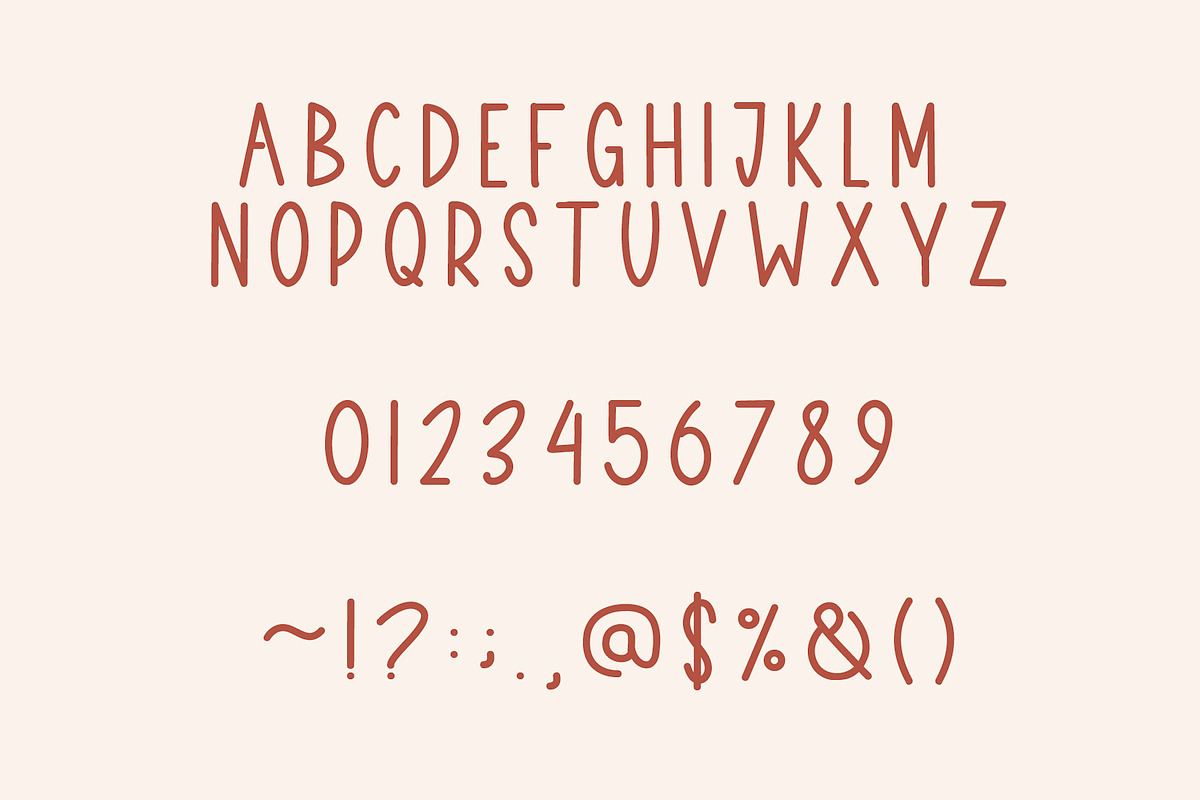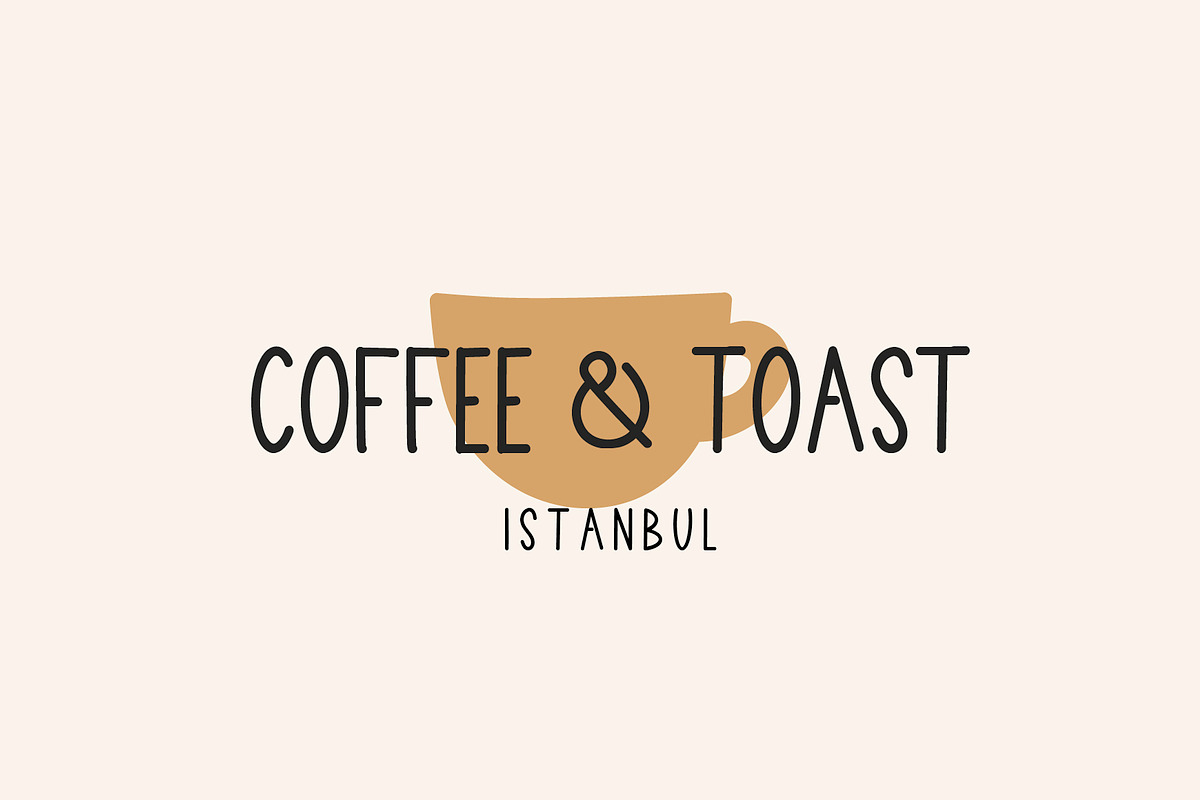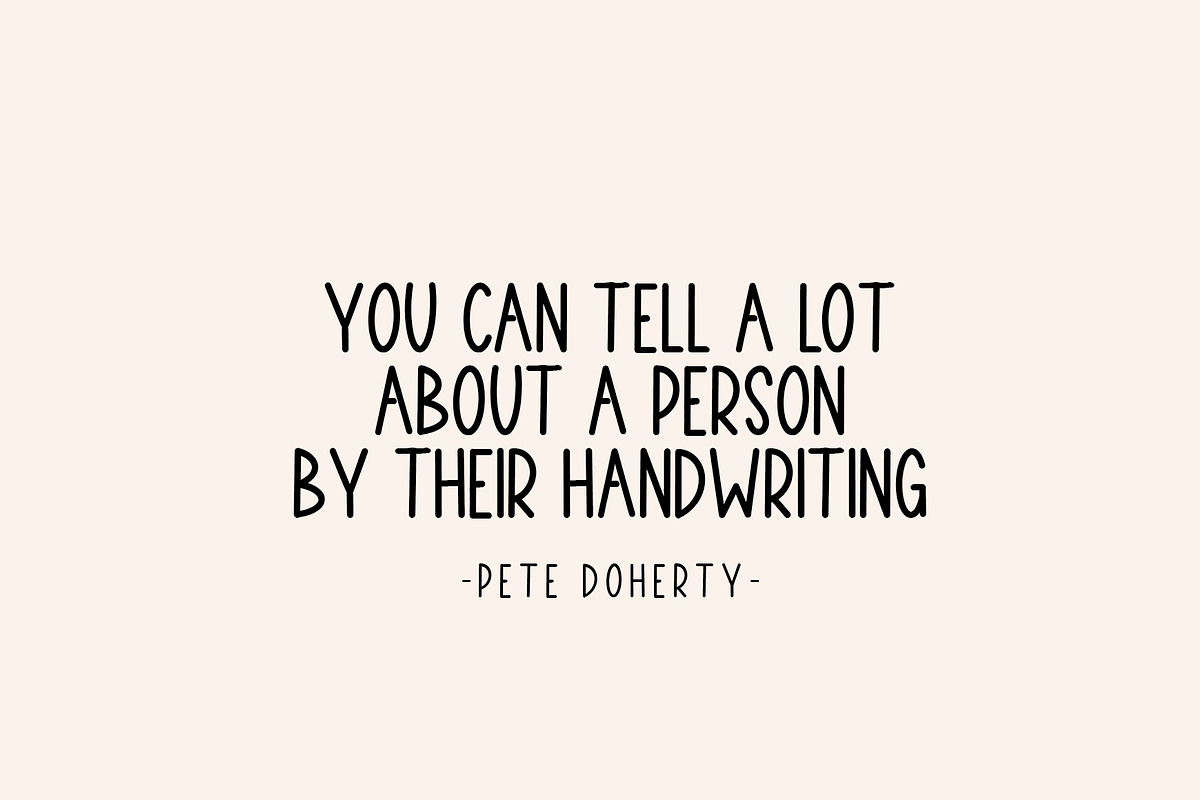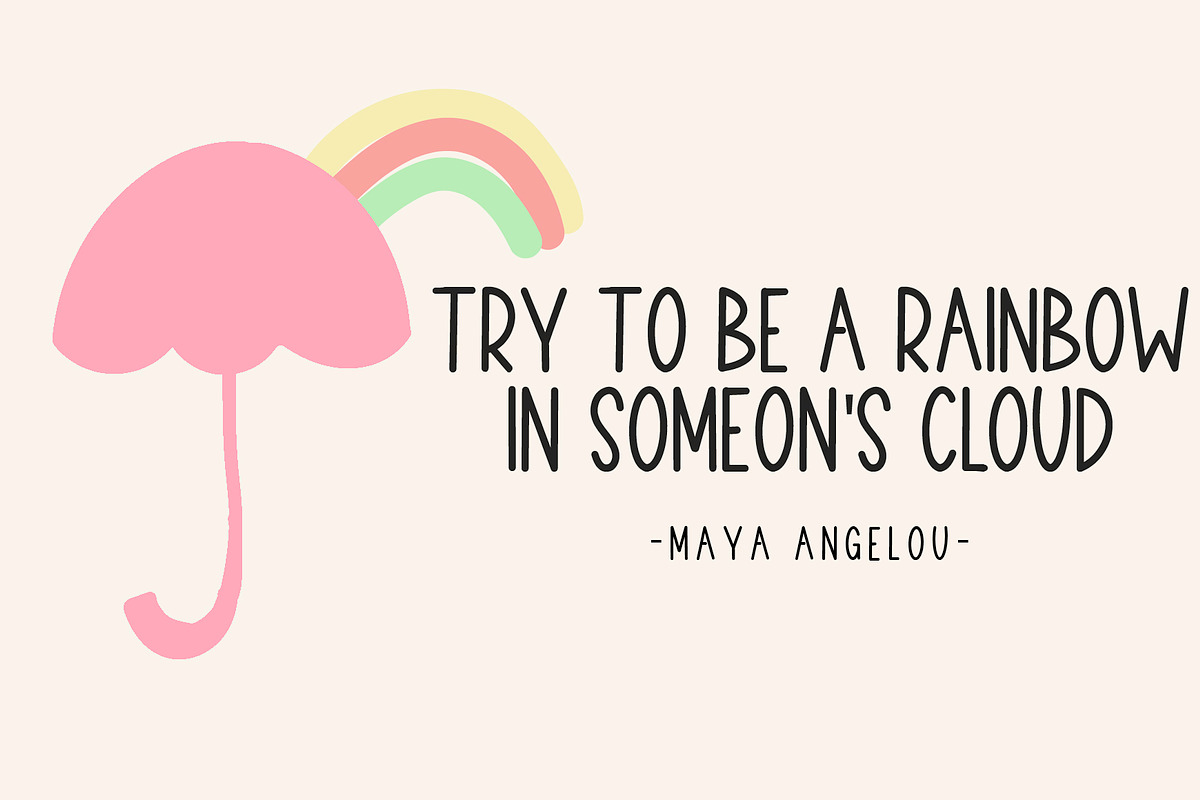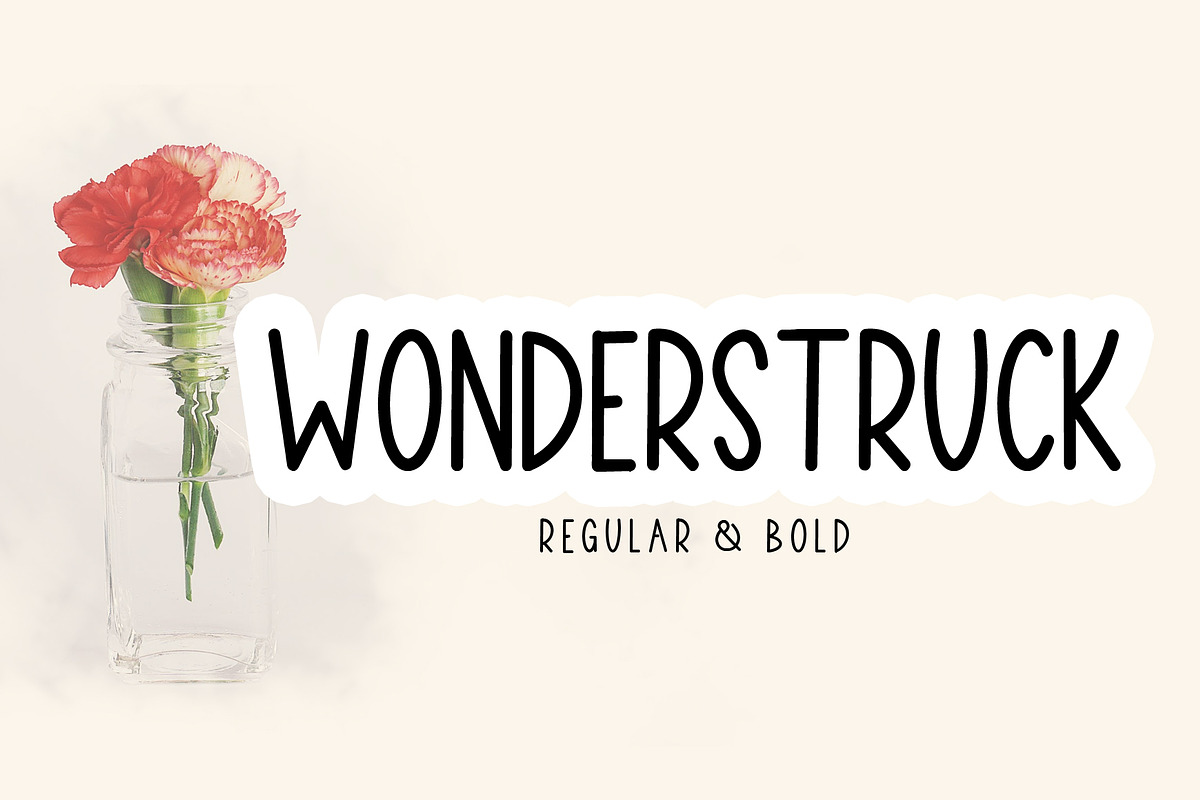
Wonderstruck-Handwritten Sans Serif
Wonderstruck is a cool Sans Serif handwriting and a neat Sans Serif font. Whatever the topic, this font will be a wonderful asset to your font library, as it has the potential to enhance any creation.